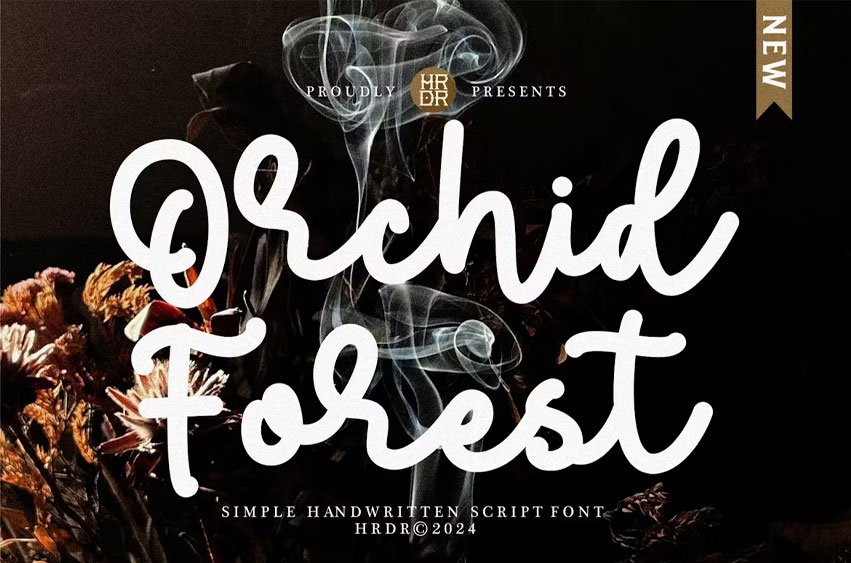
Orchid Forest Font is a simple handwritten script font, perfect for crafting, branding, invitation, stationery, wedding designs, social media posts, advertisements, product packaging, product designs, label, Posters, photography, special events, or anything.